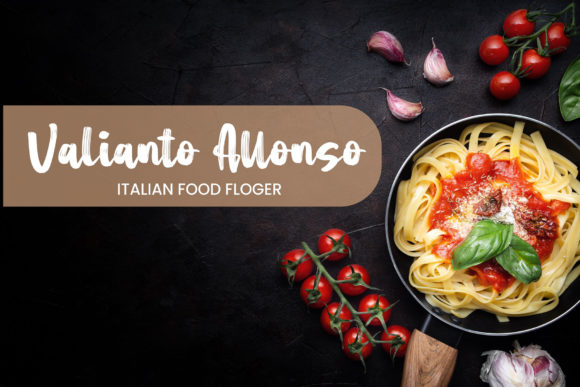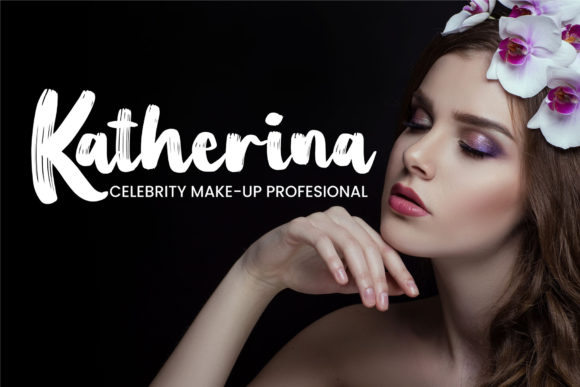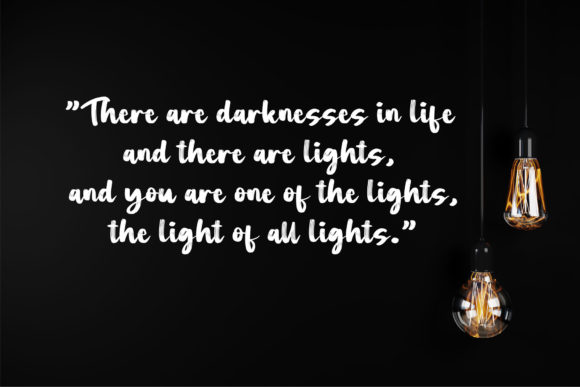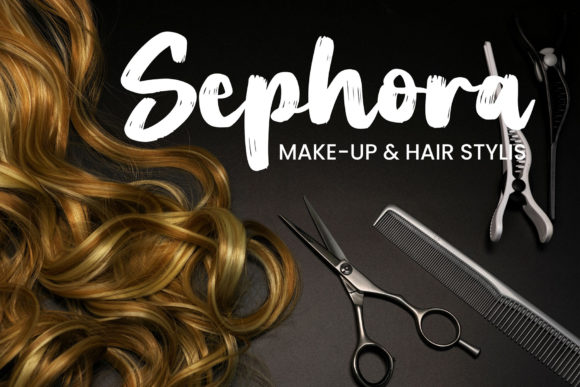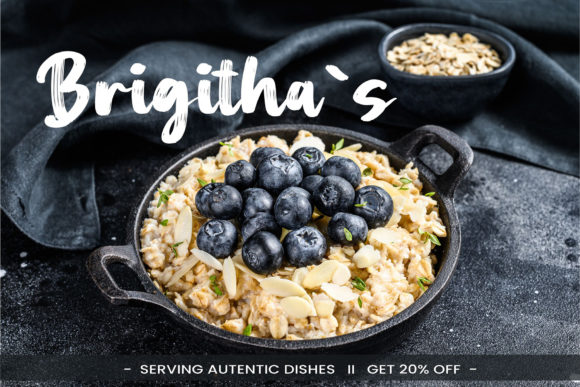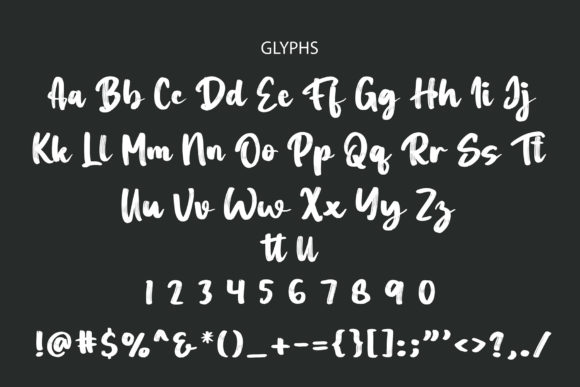
Introducing Aprilia Font: Elevate Your Designs with a Modern Brushstroke
In the world of typography, fonts play a pivotal role in making or breaking the visual appeal of a design. For designers and crafters looking to infuse their projects with a touch of personality and sophistication, the Aprilia Font stands out as an exceptional choice. This brushed handwritten font is not just a typeface; it’s a statement. With its modern and thick lettering, Aprilia Font is poised to transform your designs, making them stand out in a crowded creative landscape.
The Essence of Aprilia Font
Aprilia is characterized by its unique blend of modernity and handcrafted charm. This brushed handwritten font boasts thick, expressive letters that exude a sense of confidence and style. It’s the perfect embodiment of contemporary design with a personal touch, making it versatile for a wide range of projects. Whether you’re working on branding, packaging, posters, or digital content, Aprilia Font brings a distinctive flair that can elevate your work from ordinary to extraordinary.
Key Features of Aprilia Font
- Modern Aesthetic: Aprilia’s design is rooted in modern typography, making it highly suitable for projects that demand a fresh and current look.
- Brushed Handwritten Style: The font’s brushed appearance gives it a handcrafted feel, adding warmth and personality to your designs.
- Thick Lettering: The thickness of the letters ensures excellent readability and makes a bold statement, perfect for headlines, titles, and any text that needs to stand out.
- Versatility: Aprilia Font can be used across various mediums, from print to digital, and is compatible with most design software.
Applications of Aprilia Font
The versatility of Aprilia Font makes it an invaluable asset for designers and crafters across different creative fields. Here are some of the many applications where Aprilia truly shines:
- Branding and Logos: Create memorable brand identities with a font that communicates modernity and approachability.
- Marketing Materials: Use Aprilia to craft compelling posters, flyers, and brochures that grab attention.
- Digital Content: Enhance your website, social media posts, and email newsletters with a font that stands out on digital screens.
- Crafting and DIY Projects: Add a professional touch to your handmade products, such as labels, packaging, and instructional materials.
Tips for Using Aprilia Font Effectively
To maximize the impact of Aprilia Font in your designs, consider the following tips:
- Pair with Simplicity: Balance the boldness of Aprilia by pairing it with simpler fonts for body text or supplementary information.
- Experiment with Colors: While Aprilia looks great in bold colors, don’t hesitate to experiment with different hues to match your brand or project’s color scheme.
- Play with Sizes: Utilize varying font sizes to create visual hierarchy and emphasize key messages.
Aprilia Font is more than just a typeface; it’s a design statement that can elevate your projects with its modern brushed handwritten style and thick lettering. Its versatility, readability, and aesthetic appeal make it an excellent choice for designers and crafters looking to add a touch of sophistication and personality to their work. By incorporating Aprilia Font into your design toolkit, you’re not just choosing a font; you’re embracing a design philosophy that values modernity, expressiveness, and creativity. So, why settle for ordinary when you can make your designs stand out with Aprilia Font?